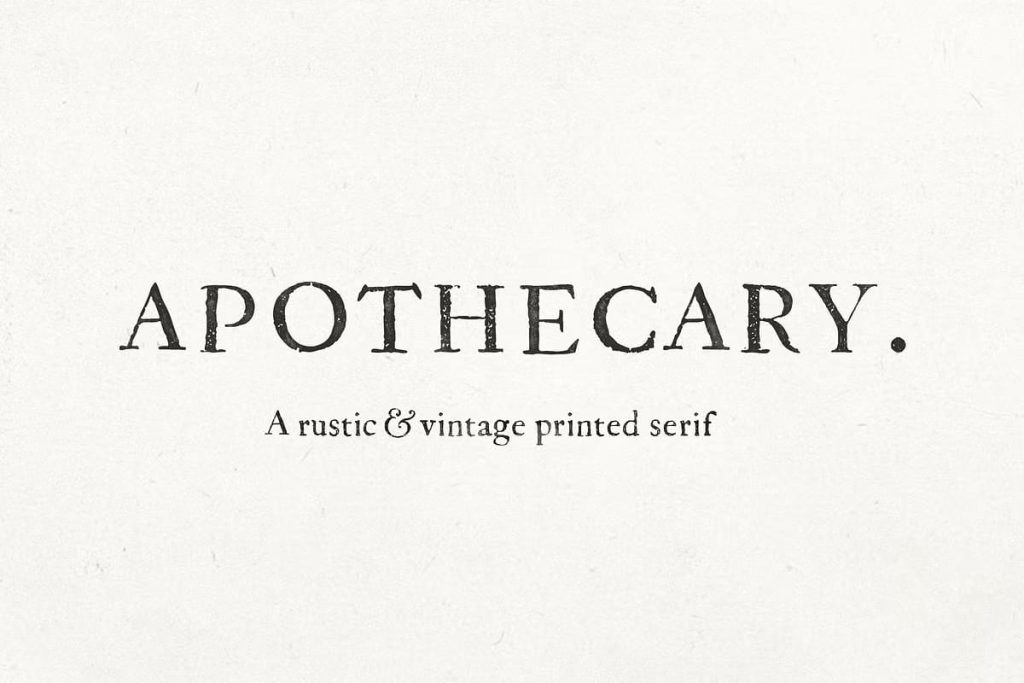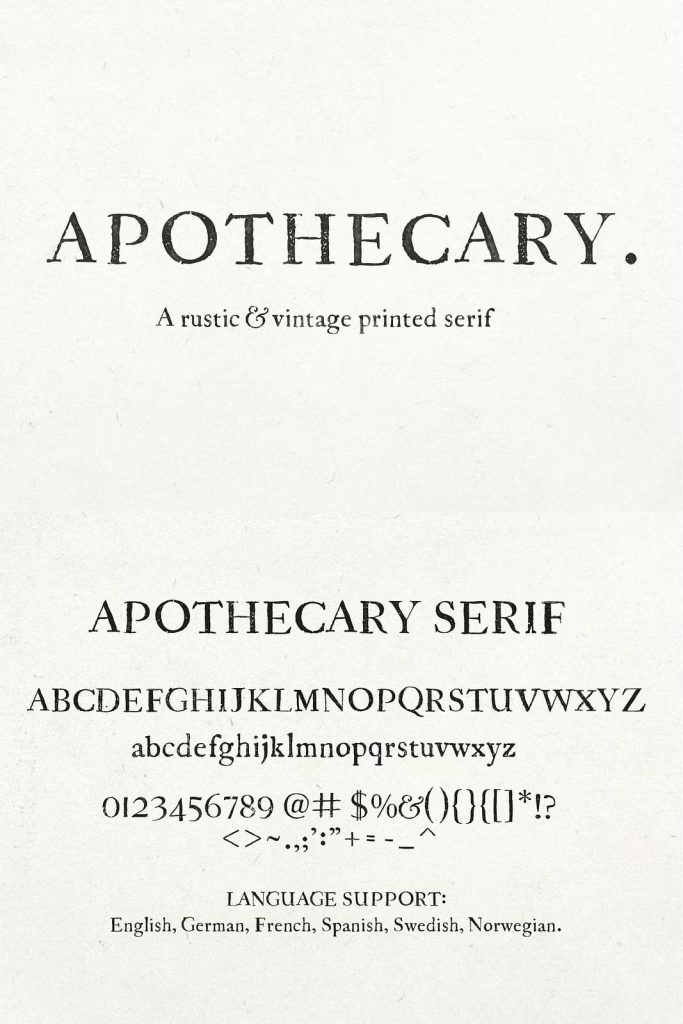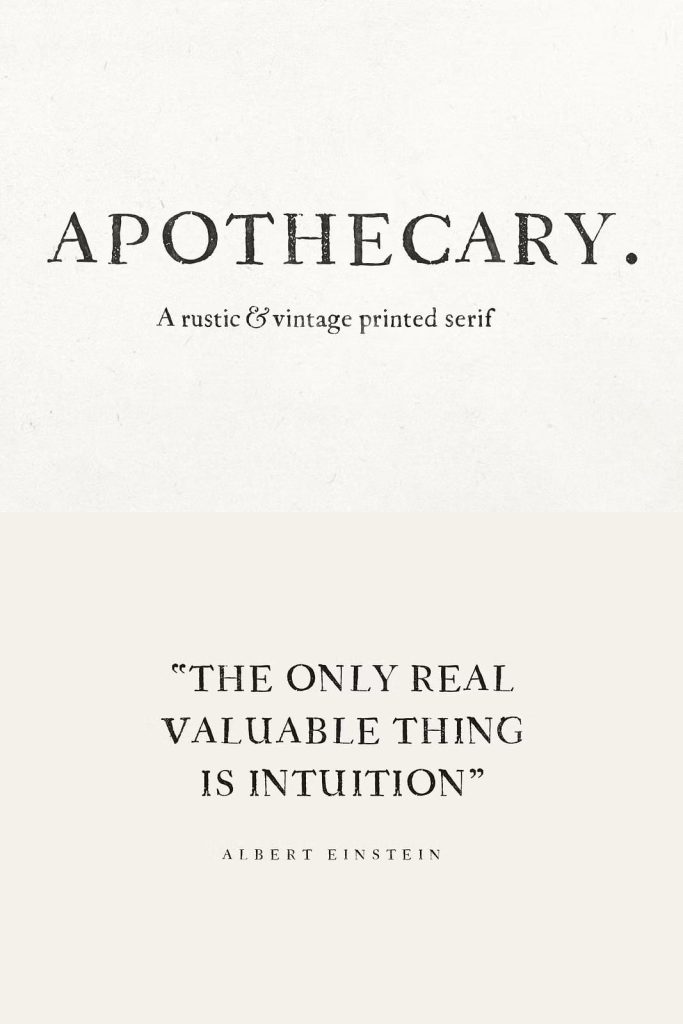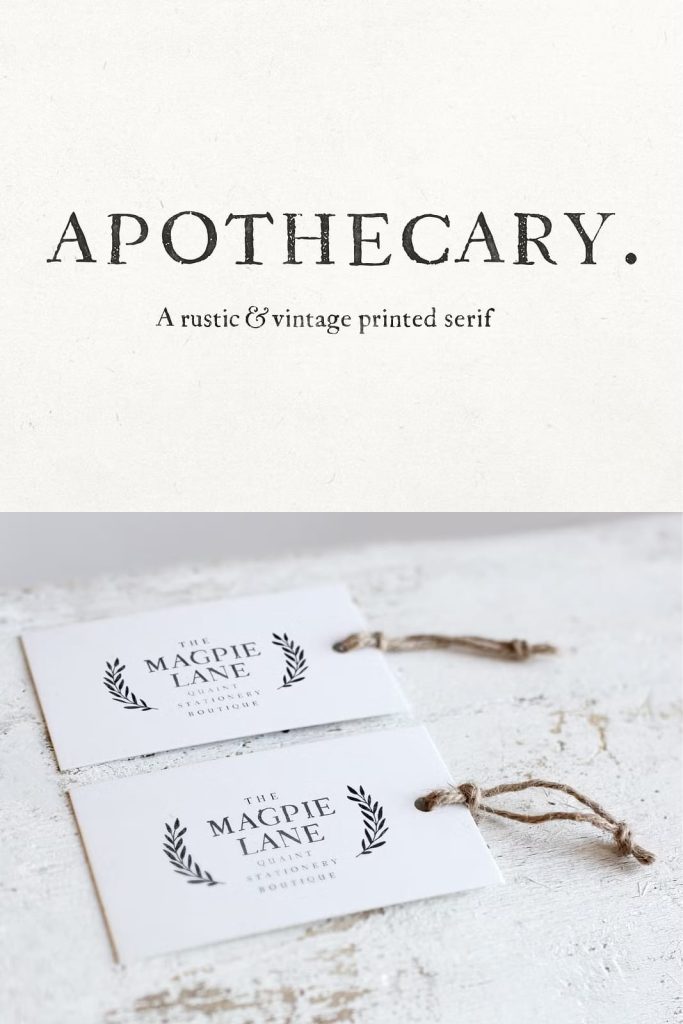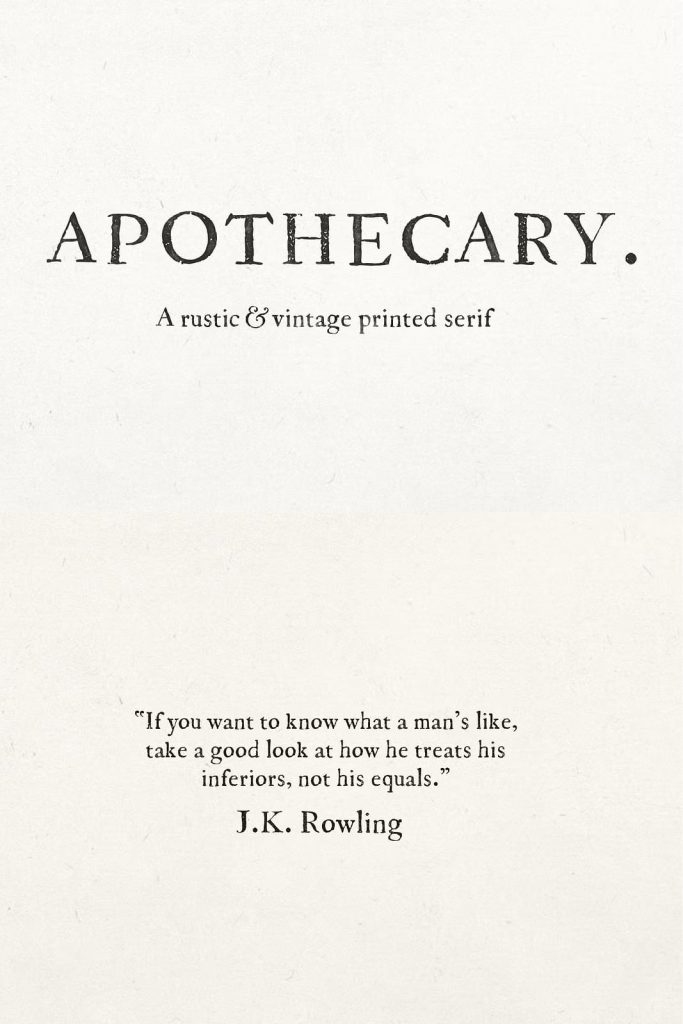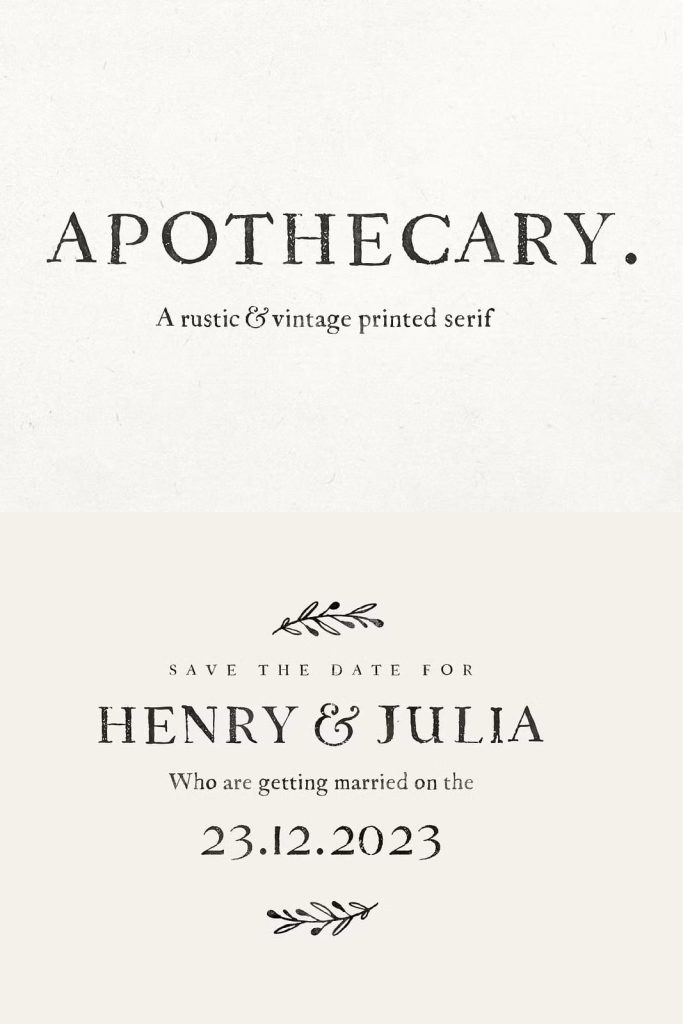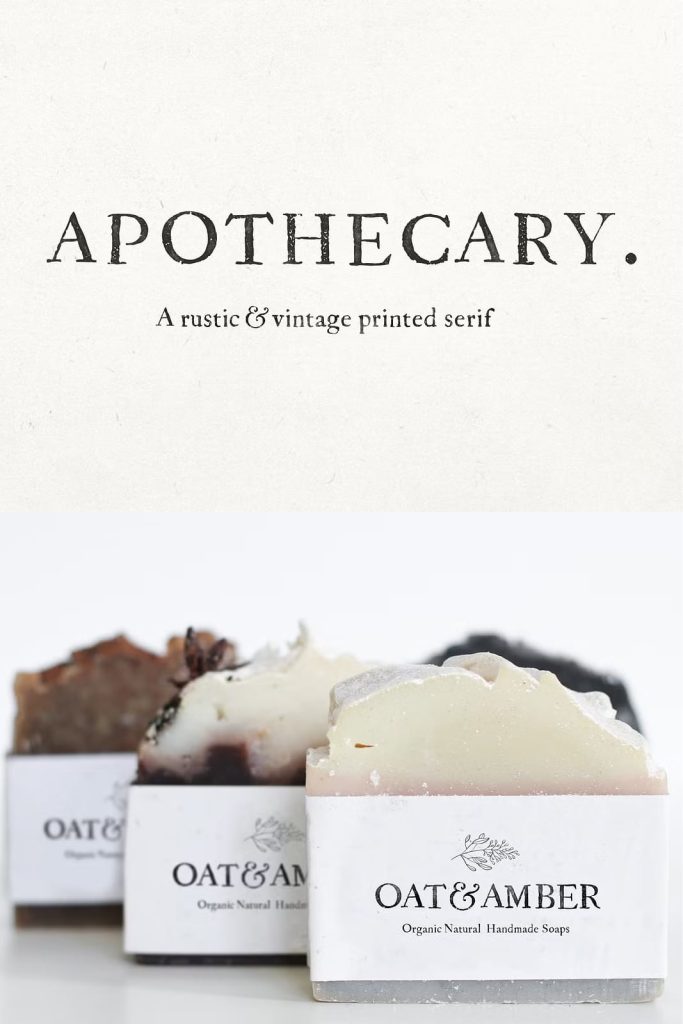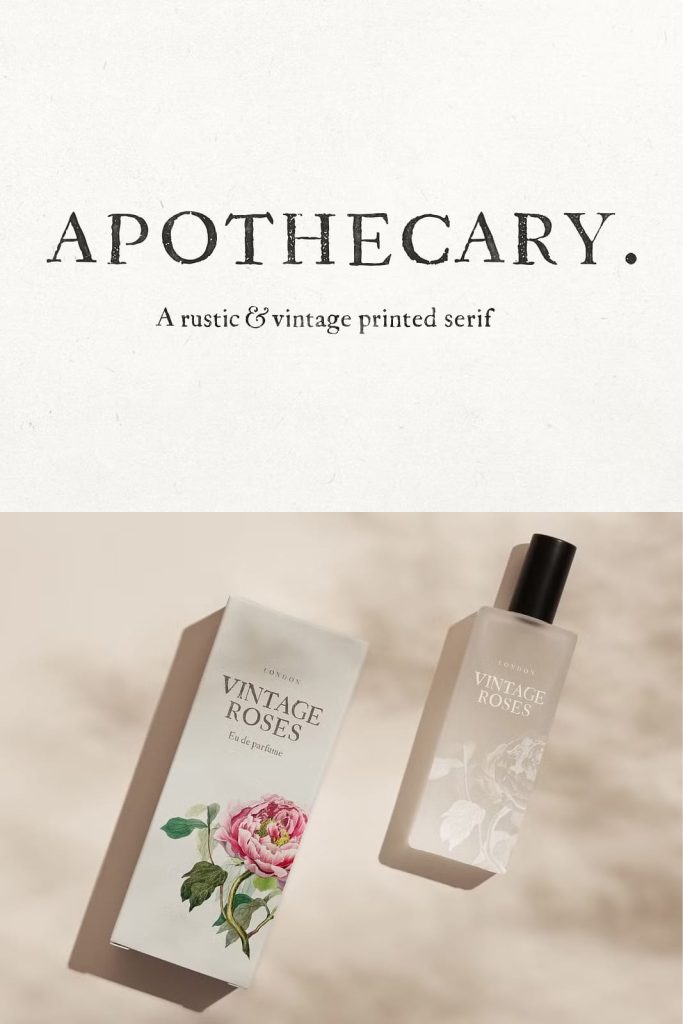
Inspired by vintage print press texts from the 18th century – Apothecary serif is a beautifully quaint and rustic serif with imperfect ink-bleed edgings. Pairs perfectly with watercolours. It also looks superb on its own as part of a minimal-styled design. Play with the letterspacing to get different effects.
Great for branding, wedding invites, packaging, quotes and labels.